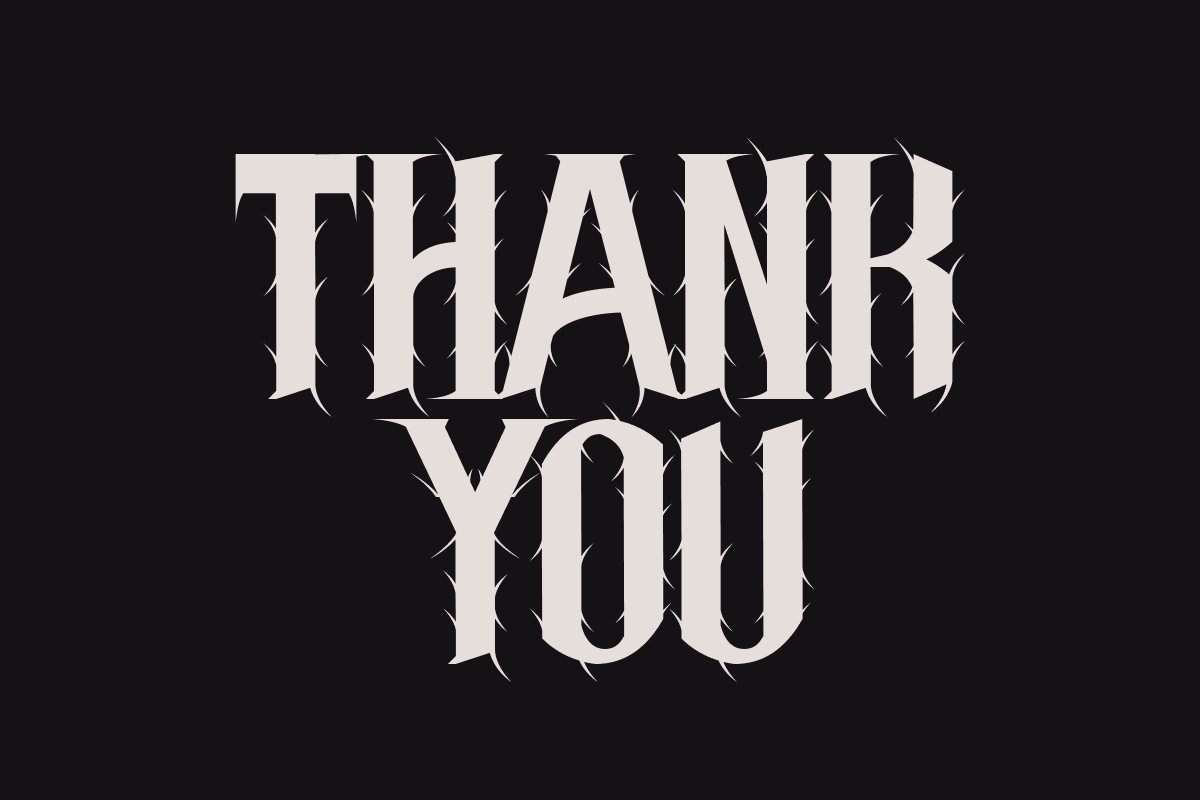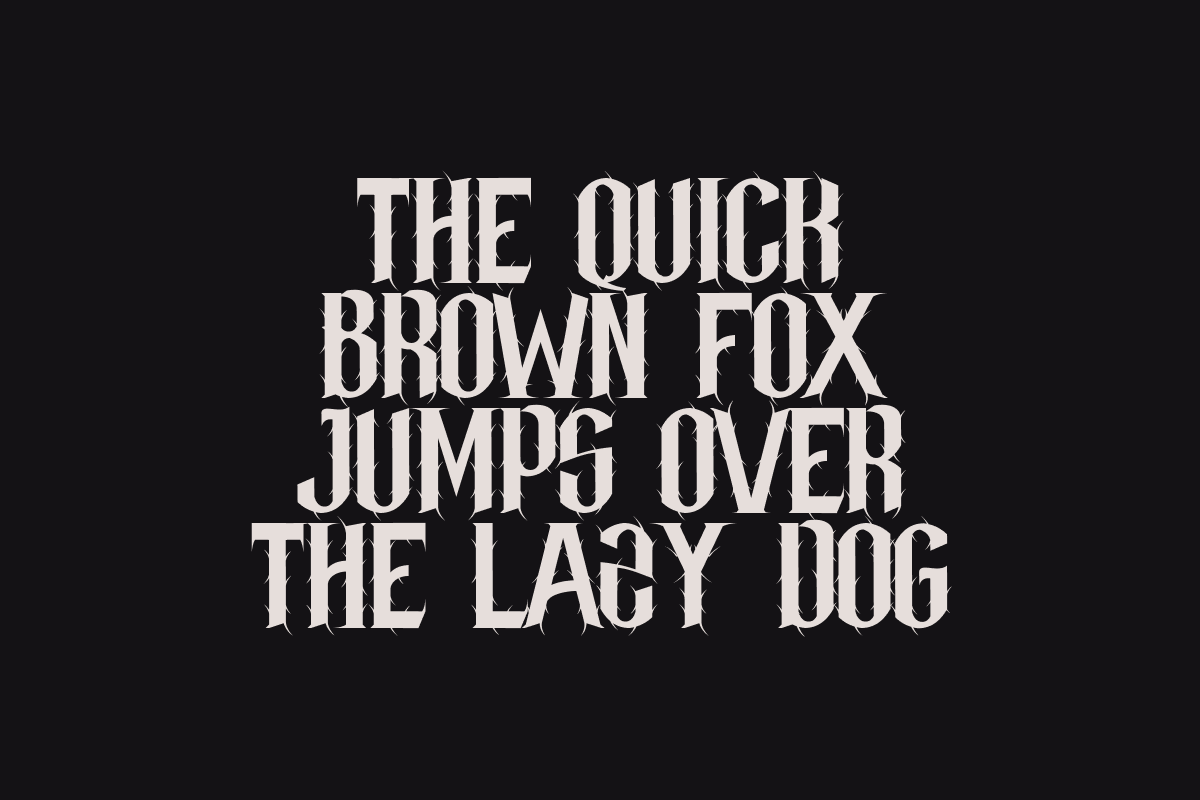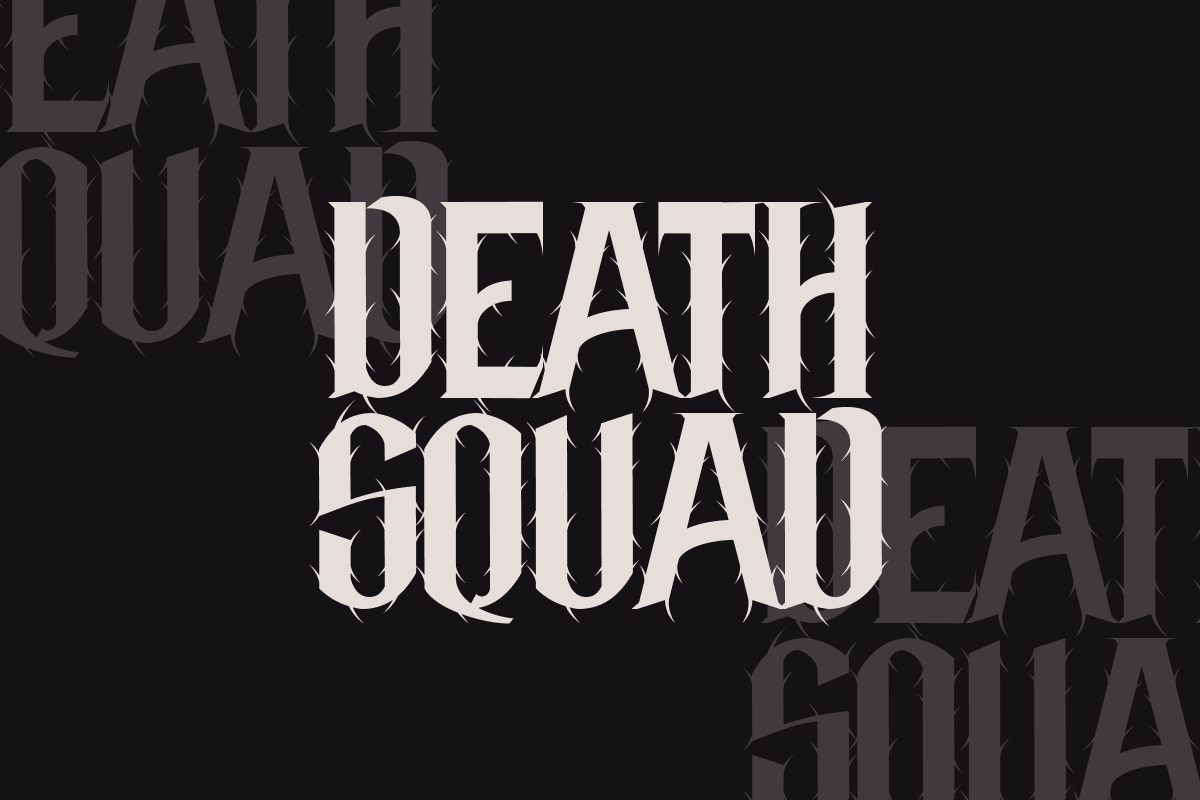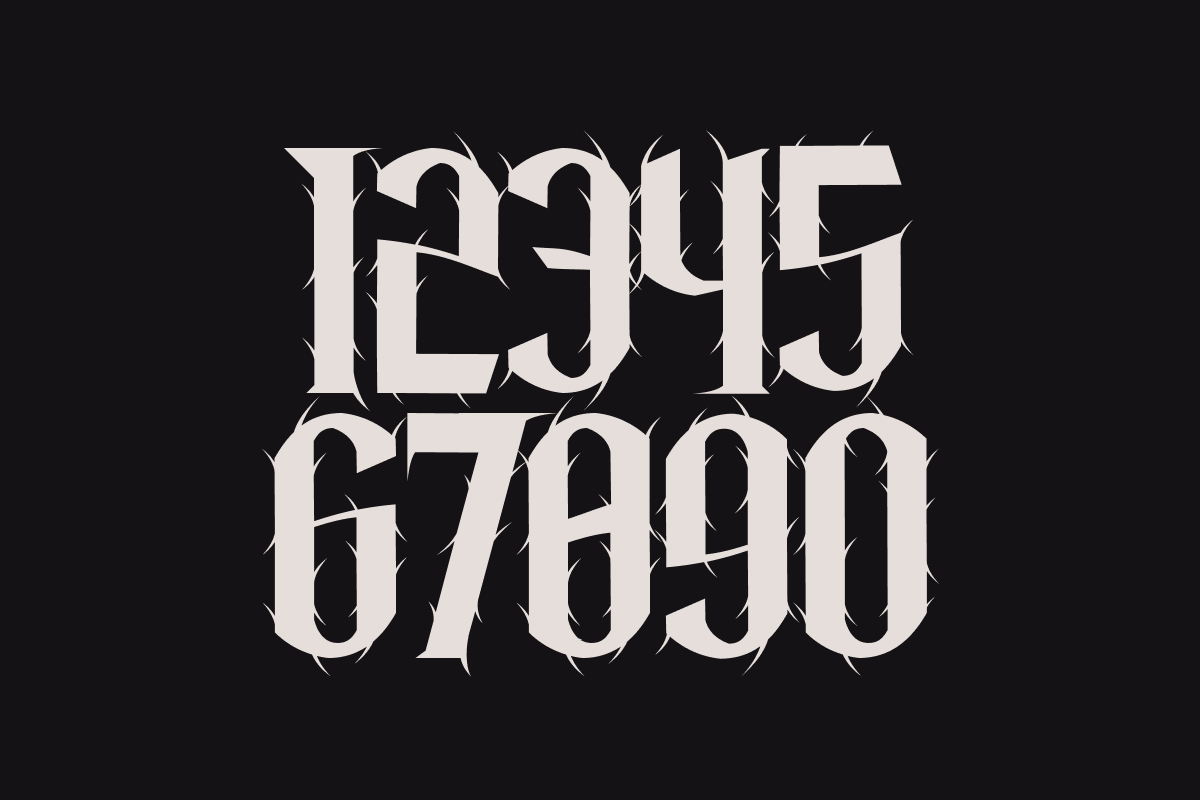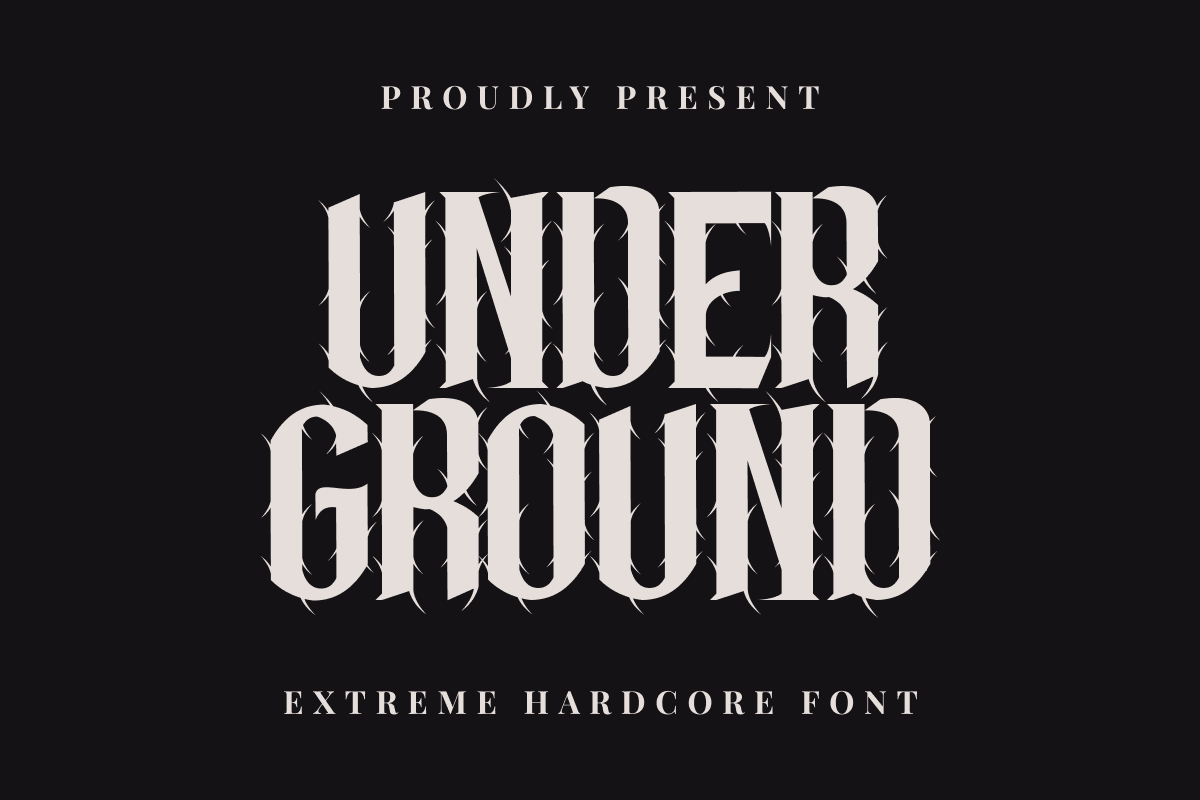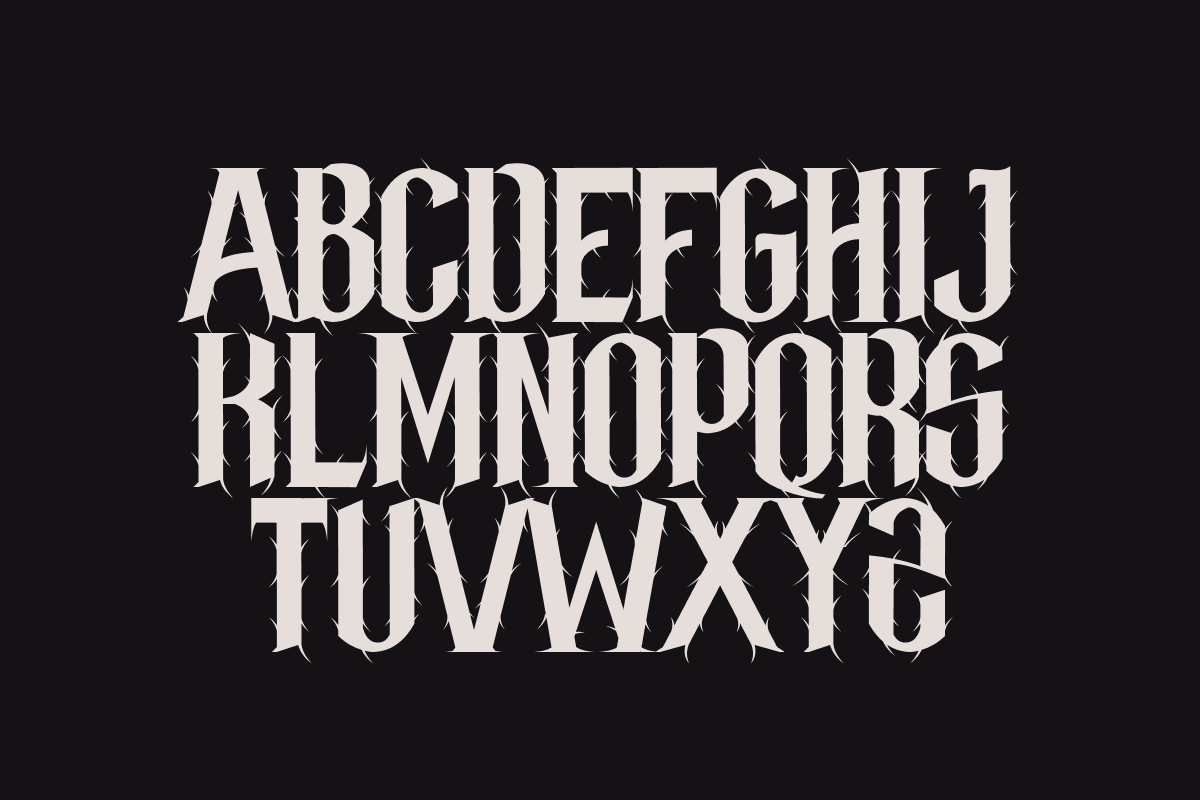
Under Ground - Hardcore Font
Embrace the power and edge of the underground with Under Ground, a modern and bold blackletter font that exudes an air of rebellion and grit. This striking font is perfect for adding a touch of urban flair and attitude to your designs. Whether you're creating band posters, street art graphics, or edgy fashion apparel, Under Ground will make your designs stand out from the crowd.